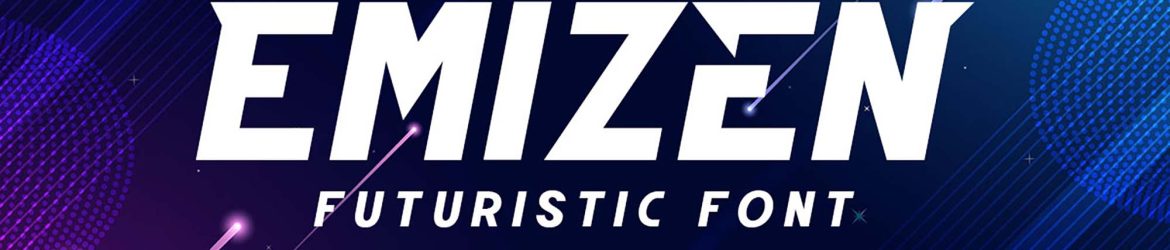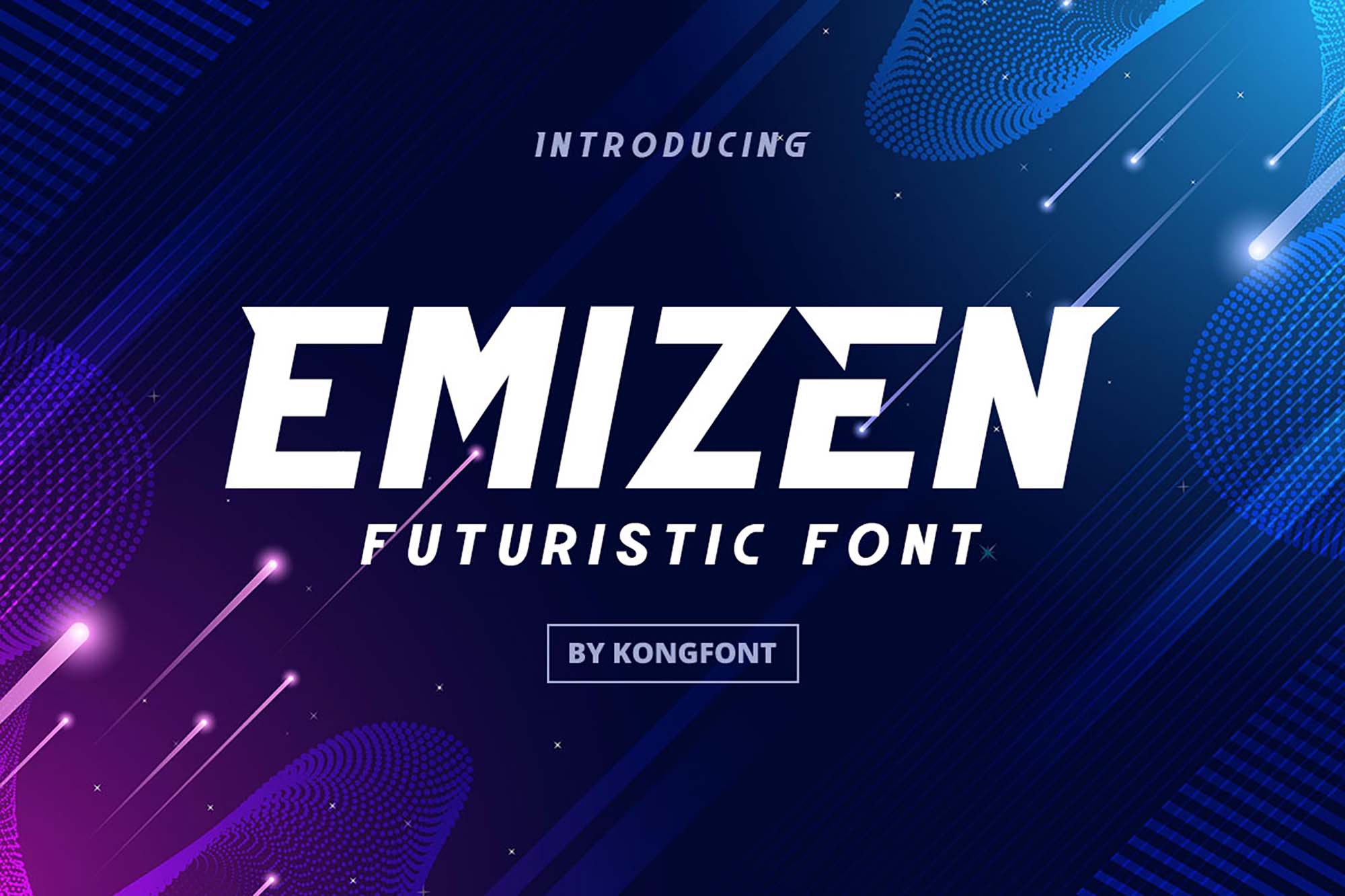
Emizen Futuristic Font
Selecting an appropriate typeface for a project that belongs in the future is nothing short of exciting. Because contemporary designs push boundaries and inspire our imagination to wonder, futuristic fonts continue to break the mold in, especially beautiful ways. If you’re on the lookout for one, check out Emizen futuristic font, the amazing typeface by Kong Font .